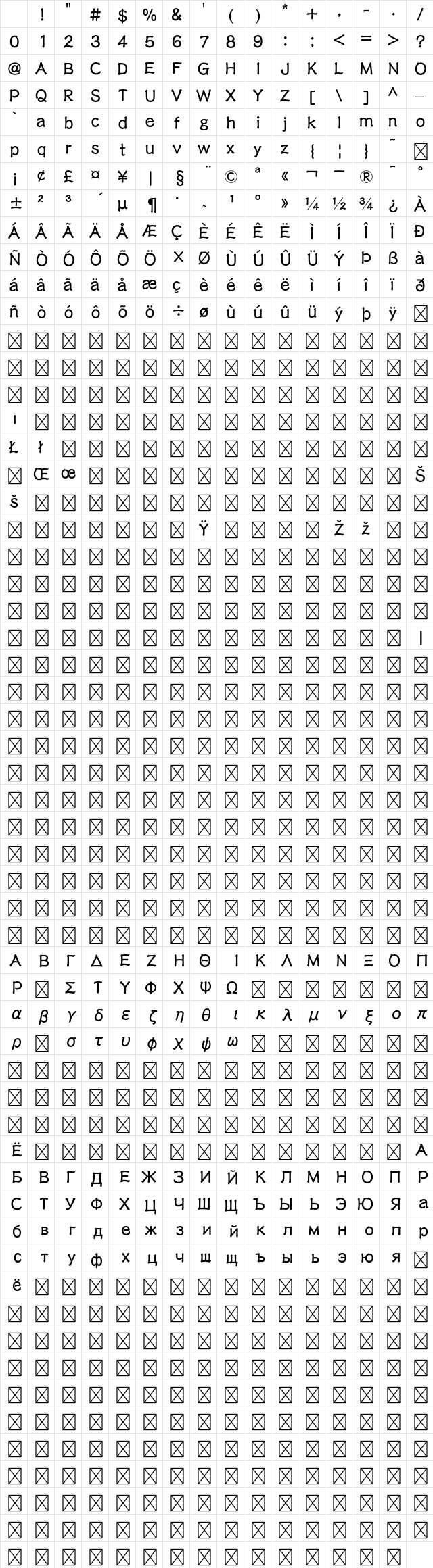
Complete A-OTF Reisho 101 Std Medium glyph index. Displaying only characters natively supported by A-OTF Reisho 101 Std Medium font.
A-OTF Reisho 101 Std is a composed and adaptable typeface that performs quietly and consistently across a wide range of design contexts.